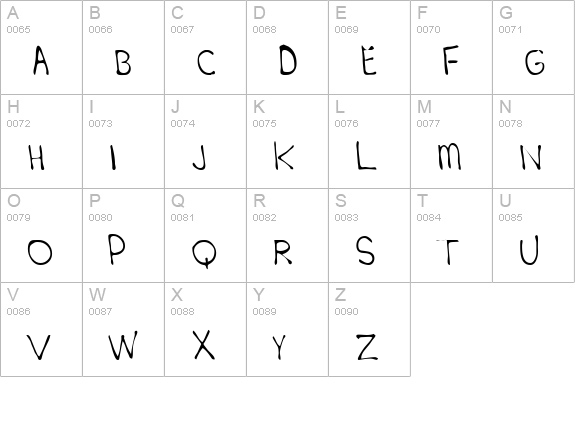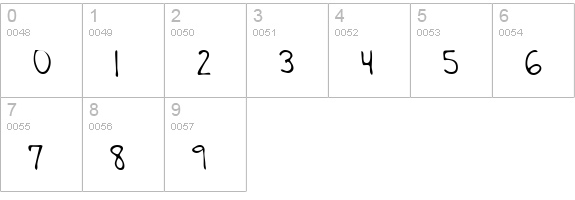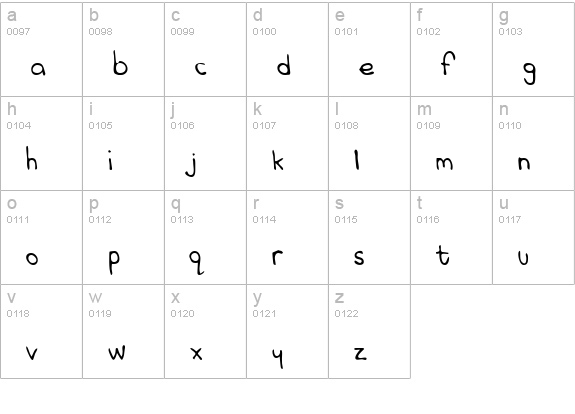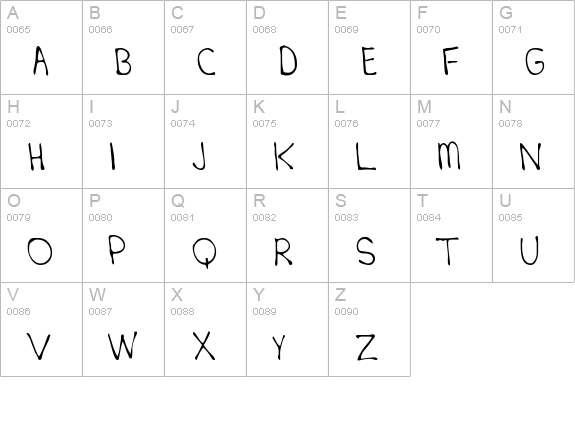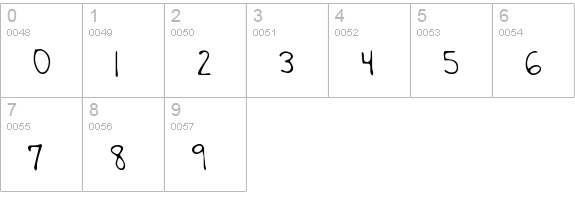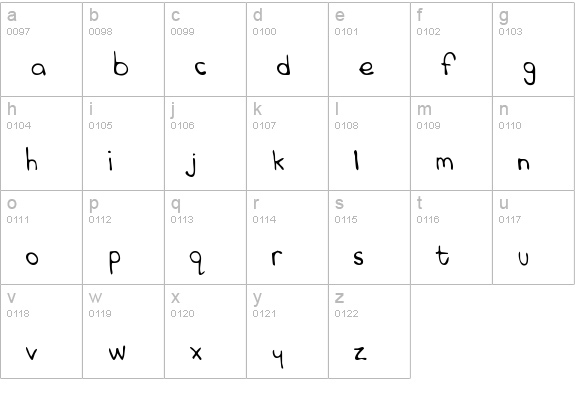
RobinsHand Font Details
Introducing RobinsHand font, a charming and whimsical typeface that will add a touch of playfulness to your designs. This delightful font features elegant hand-drawn letterforms with a unique flair, making it perfect for projects that require a personalized and friendly touch. RobinsHand font is versatile and suitable for a wide range of design applications, from invitations and greeting cards to branding and packaging. Its flowing lines and dynamic strokes create a sense of movement and energy, capturing the essence of creativity and imagination. Best of all, RobinsHand font is available for free download at FontsMarket.com, making it accessible to everyone who wants to add a touch of creativity to their projects. Don't miss out on this opportunity to enhance your designs with the charming RobinsHand font today!